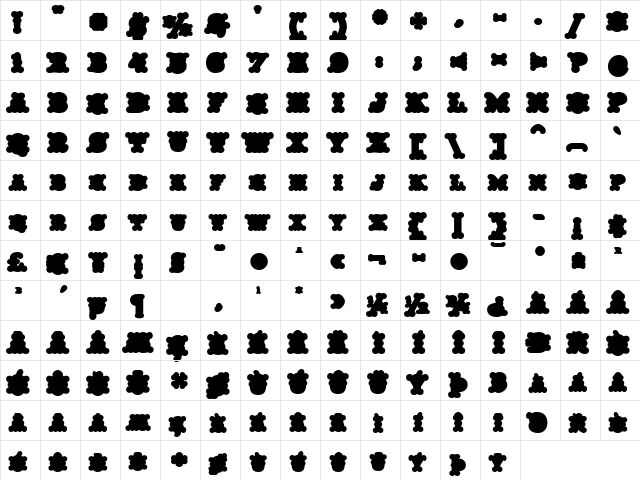
Taqueria Black Fill XL Regular
Design Context for Taqueria Black Fill XL Typeface
Taqueria Black Fill XL is a composed and adaptable typeface that performs quietly and consistently across a wide range of design contexts.